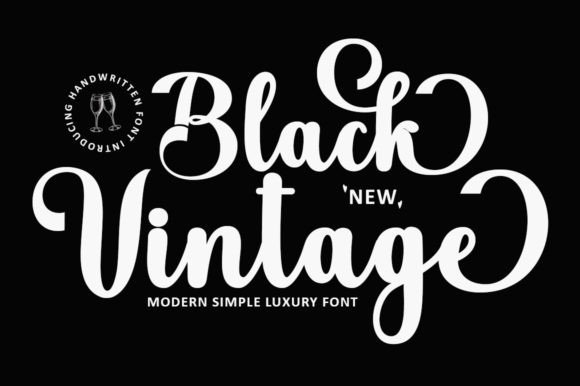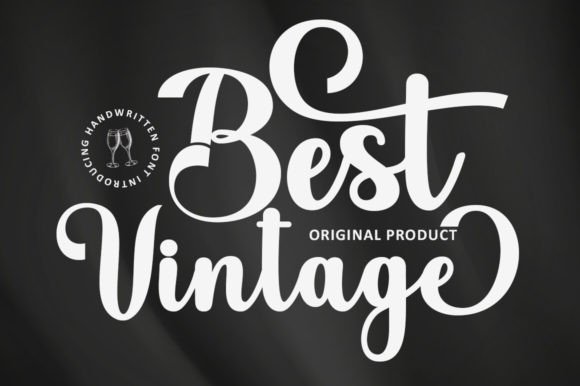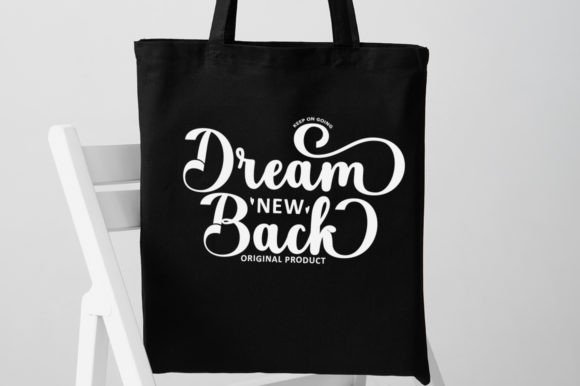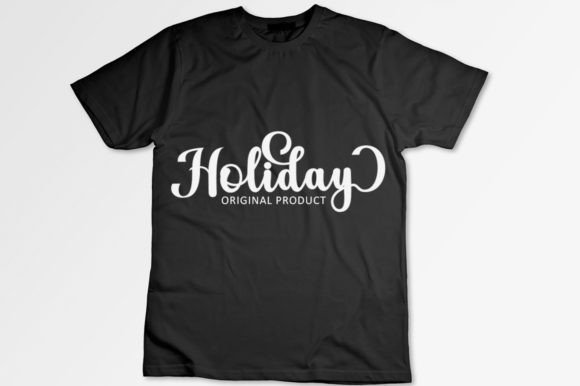
Black Vintage Font
About the Black Vintage Font
Explore the possibilities with Black Vintage Font, a font that offers both beauty and functionality. Black Vintage Script is an elegant script font that comes with very beautiful character changes, a type of classic copper decorative script with a modern touch, designed in great detail to present an elegant style.
Black Vintage Script is attractive because the typeface is pleasing to the eye, clean, feminine, sensual, glamorous, simple and very easy to read, thanks to the many luxurious letter connections. The classic style is very suitable to be applied in various formal forms such as invitations, labels, restaurant menus, logos, fashion, make-up, stationery, novels, magazines, books, greeting/wedding cards, packaging, labels or all kinds of things. advertisement. objective.
Black Vintage Font Usage Examples
Black Vintage Font Example